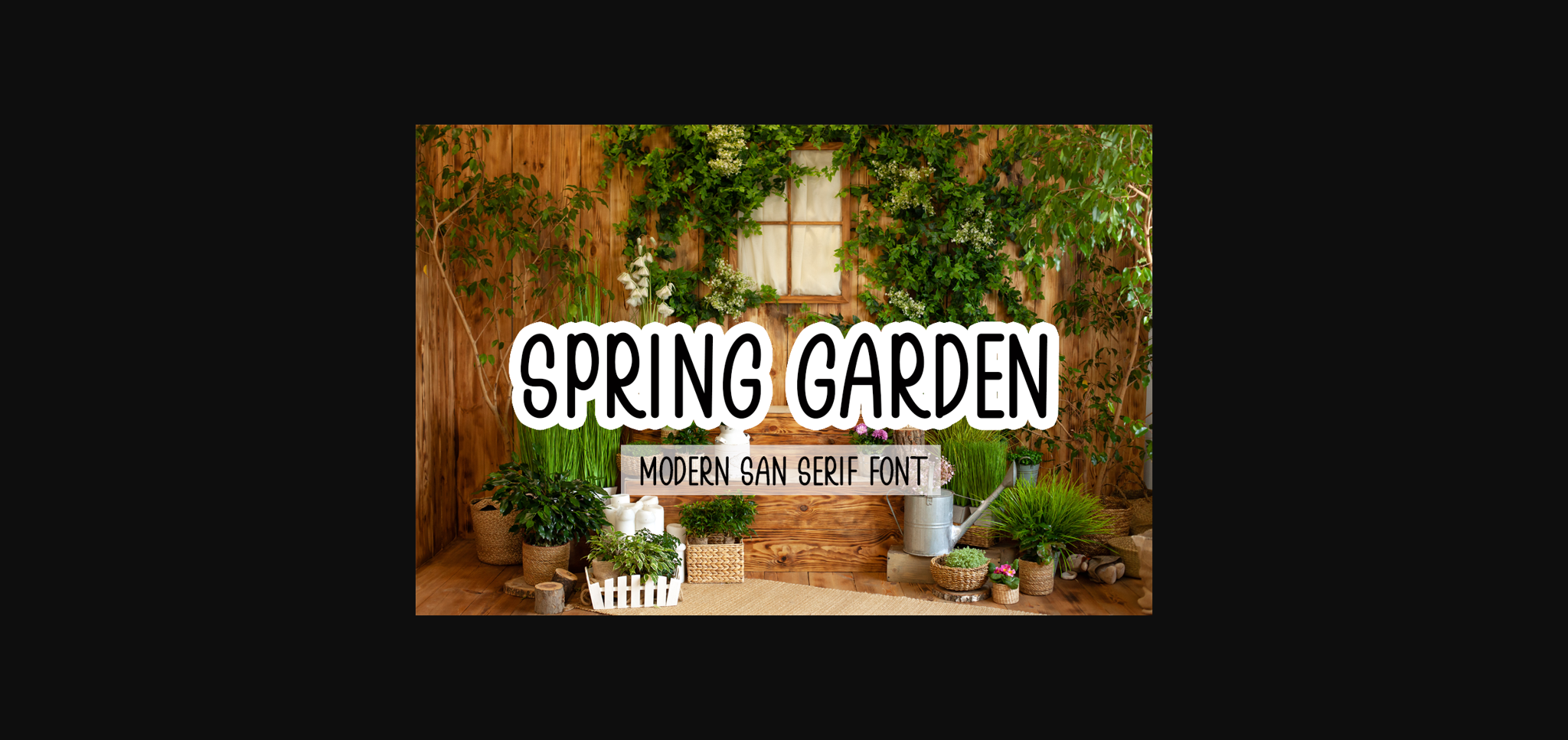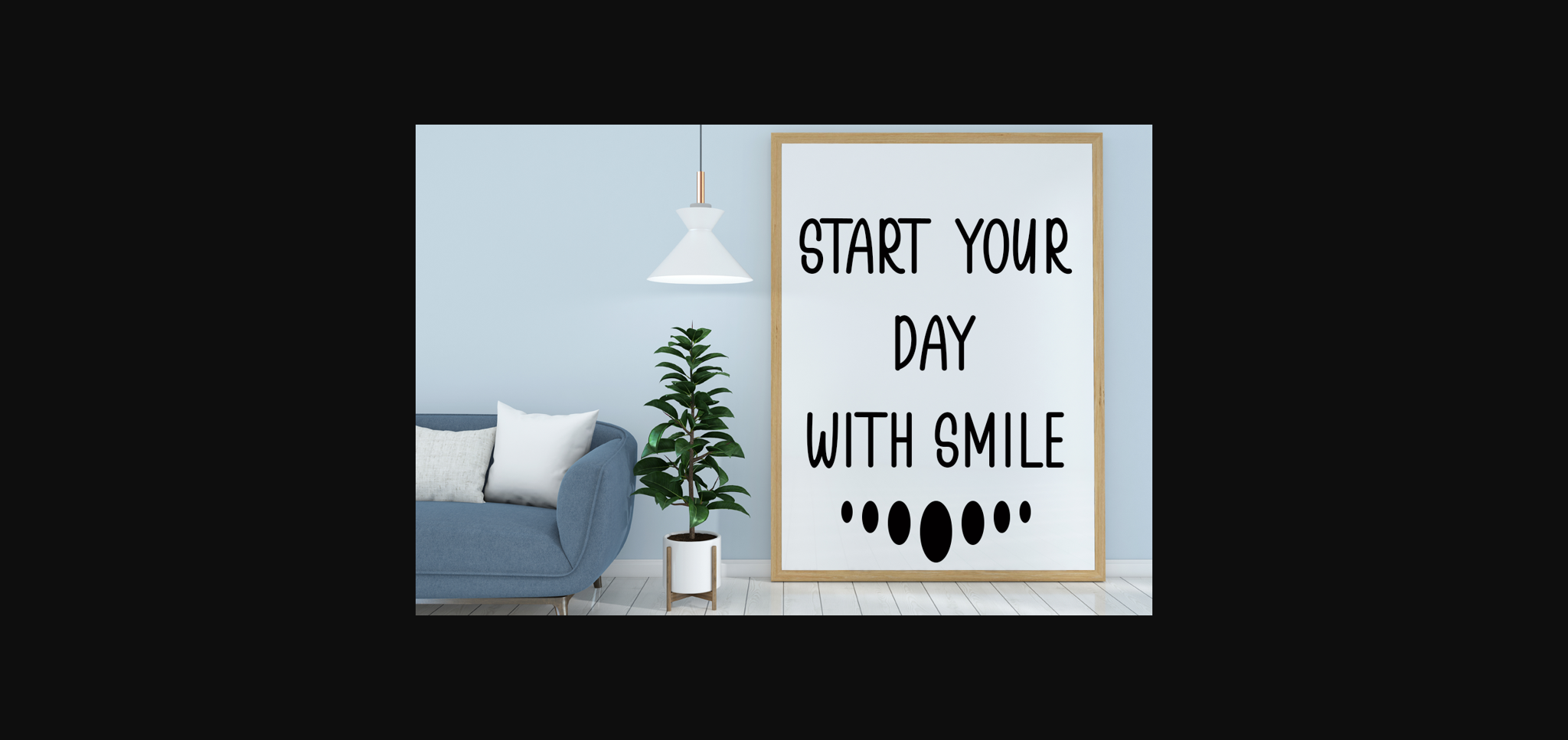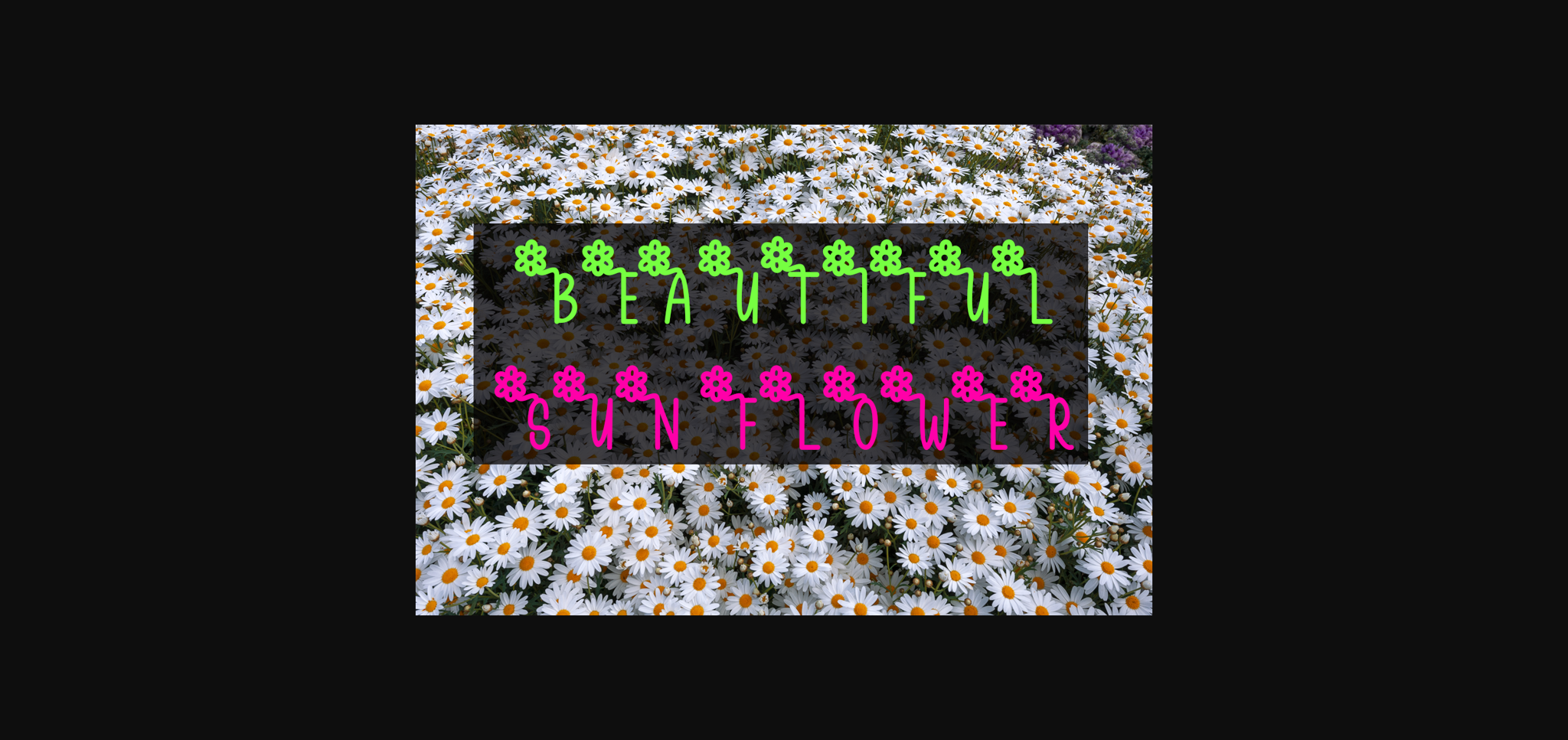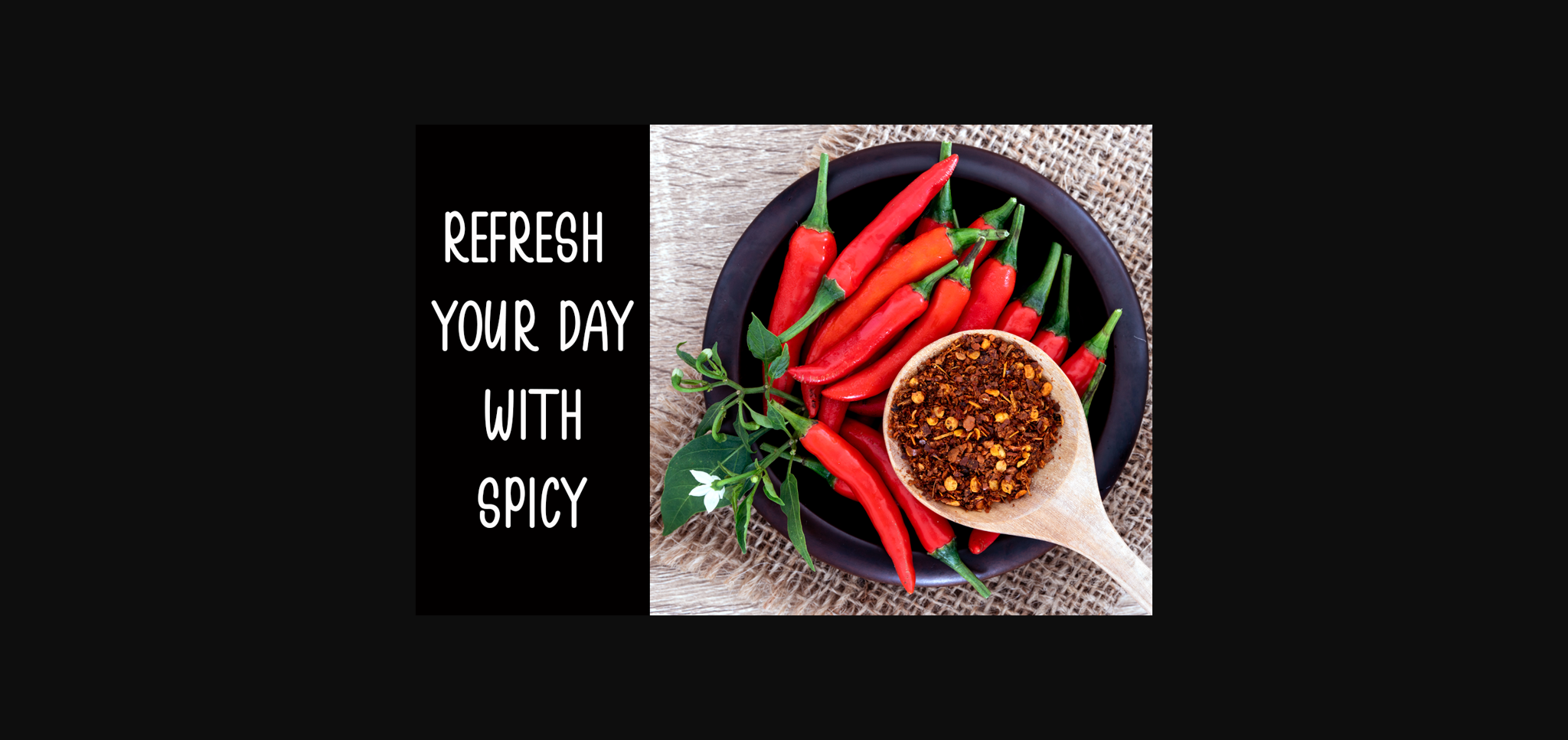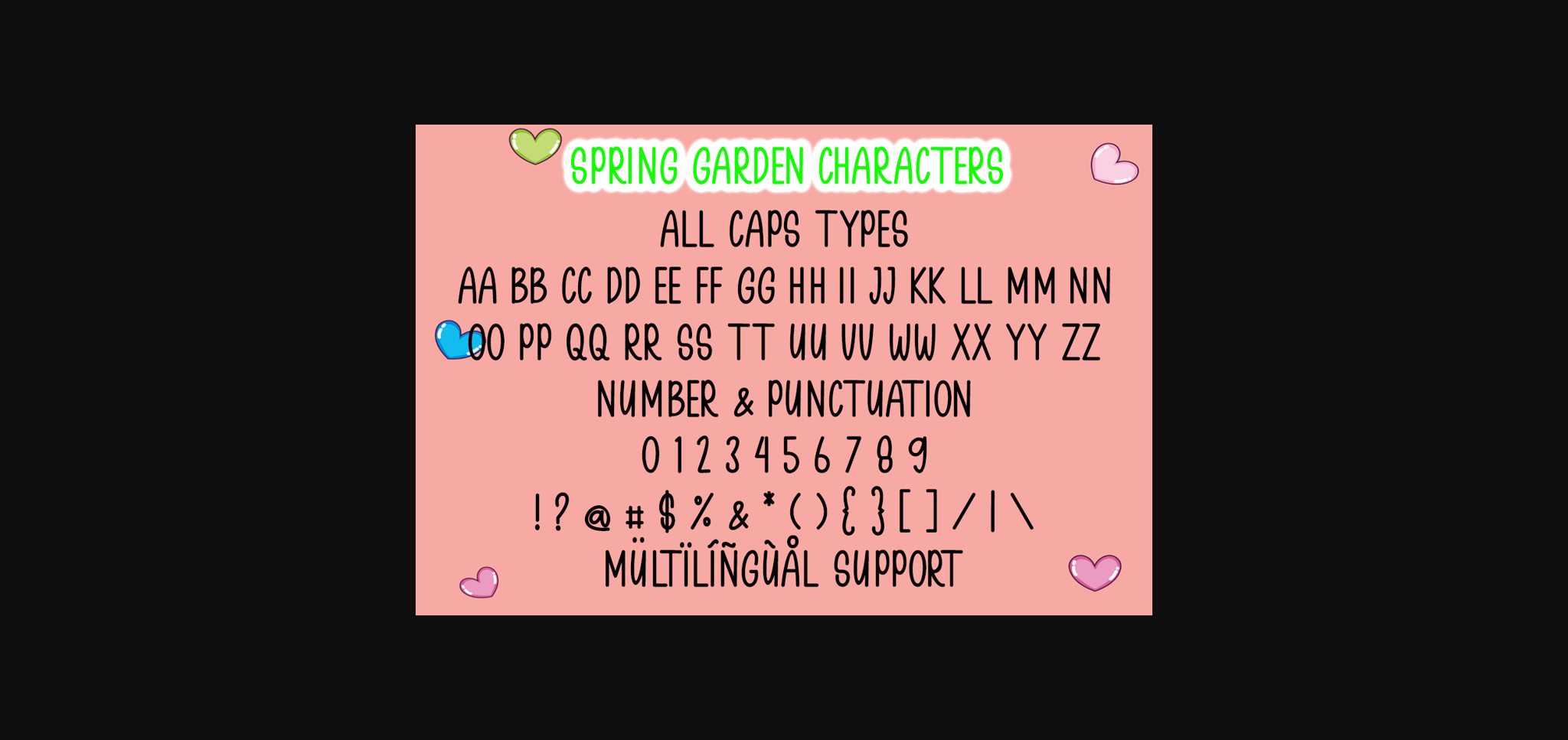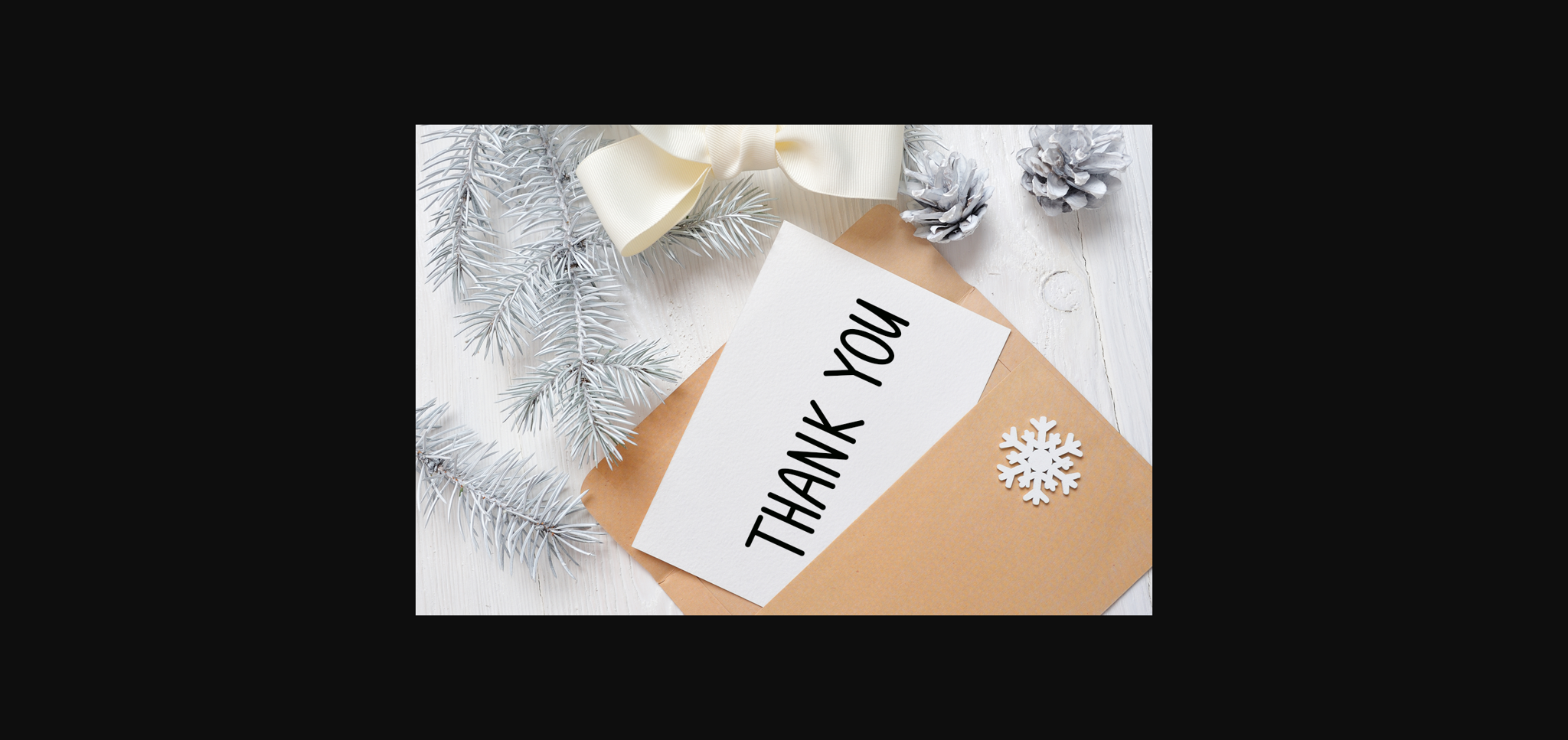
Spring Garden is a modern and neat sans serif font. It can be matched to a large set of projects, so add it to your creative ideas and notice how it makes them stand out!